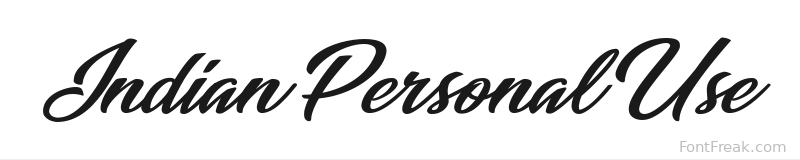
Indian Personal Use
About Indian Personal Use
The Indian Personal Use font by Billy Argel Fonts offers a unique blend of elegance and cultural flair, making it a standout choice in the world of typography. This script font features a fluid, cursive style characterized by its smooth, sweeping strokes and graceful curves. The stroke weight varies delicately, providing a sense of warmth and approachability while maintaining a refined appearance. The spacing is thoughtfully designed to ensure legibility, which is essential for various applications.
This font is particularly well-suited for projects that require a touch of sophistication and personality. It shines in wedding invitations, where its romantic script beautifully conveys heartfelt sentiments. Additionally, it can enhance the visual appeal of movie posters, adding a layer of artistic flair that captures attention. Restaurant menus can also benefit from the Indian Personal Use font, as it lends a unique character that complements culinary themes. Further, content creators looking to elevate their branding will find this font a valuable asset for social media graphics or promotional materials.
Targeting graphic designers, small business owners, and content creators, this font serves as an excellent tool for those aiming to create a memorable impression. It embodies a blend of personal touch and artistic expression that resonates with audiences.
Overall, the Indian Personal Use font stands out due to its distinctive style and versatility. Its ability to convey emotion through elegant lettering makes it a fantastic choice for anyone looking to add a personal touch to their designs. With its free download option, users can easily incorporate this beautiful font into their creative projects, making it a must-have for anyone in search of a unique typographic solution.